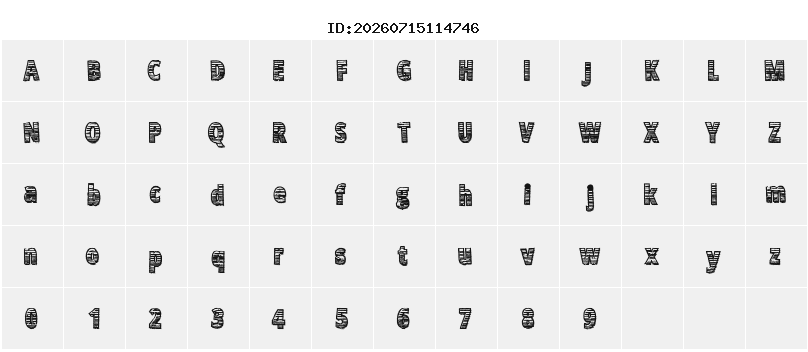
ZeroHype Preview
• Font Name: ZeroHype
• Full Font Name: ZeroHype
• Version: Version 1.00 July 12, 2013, initial release
• Designer: Xerographer Fonts Max Infeld
• Manufacturer: Xerographer Fonts
• Description: Made at Xerographer Studios in Chico,CA
About ZeroHype.ttf
ZeroHype.ttf is a modern, elegant sans-serif font designed for ultimate readability and visual harmony. Perfect for branding, headlines, web design, and print materials.